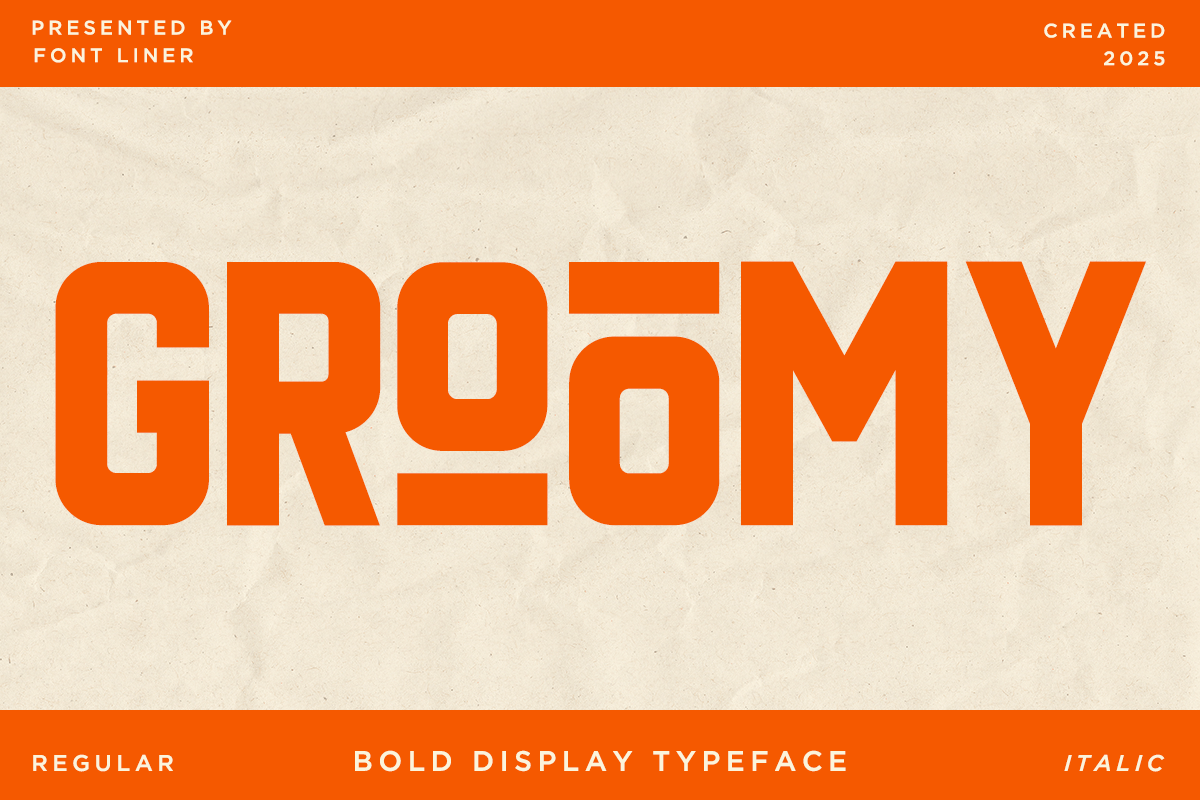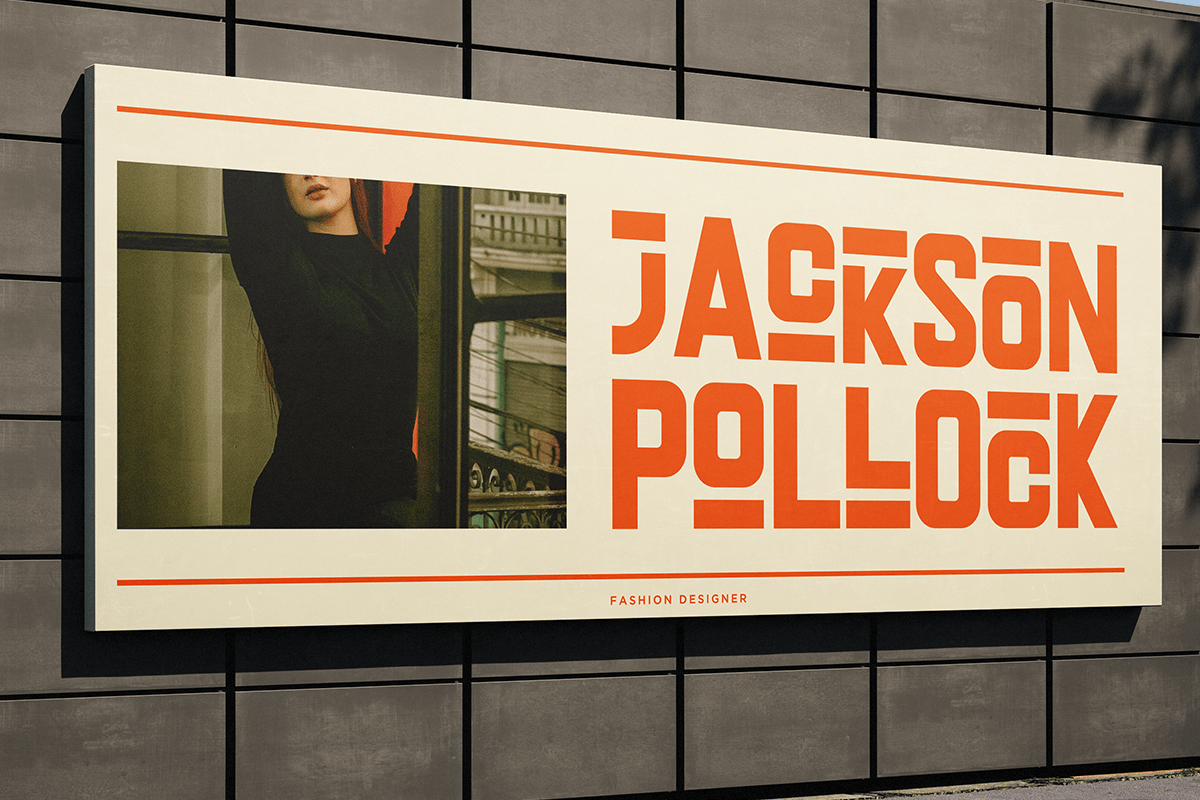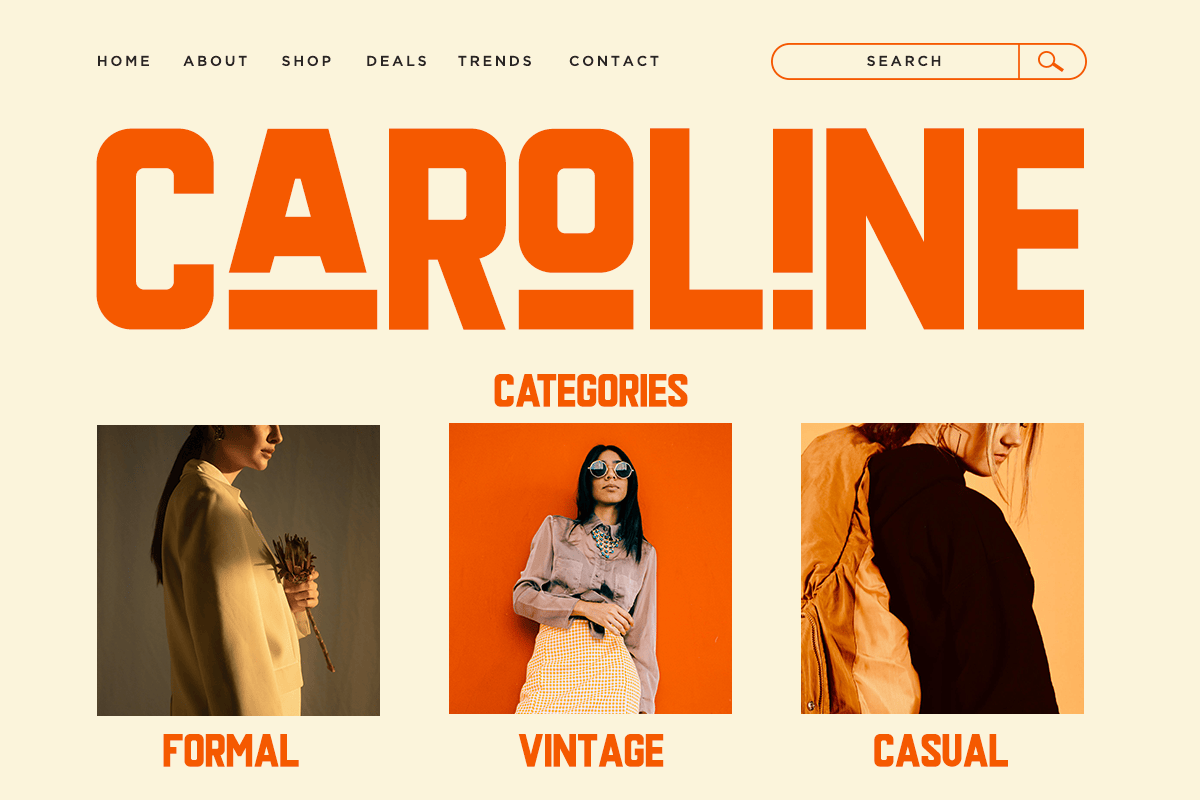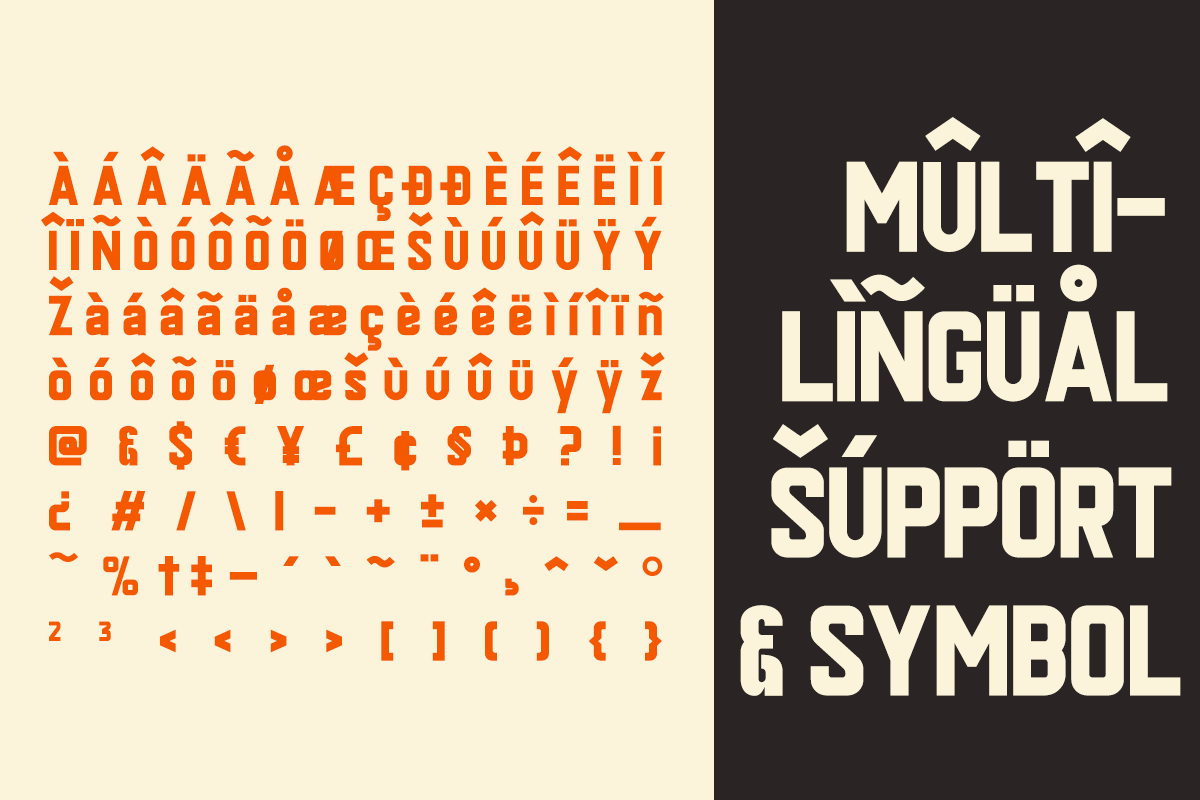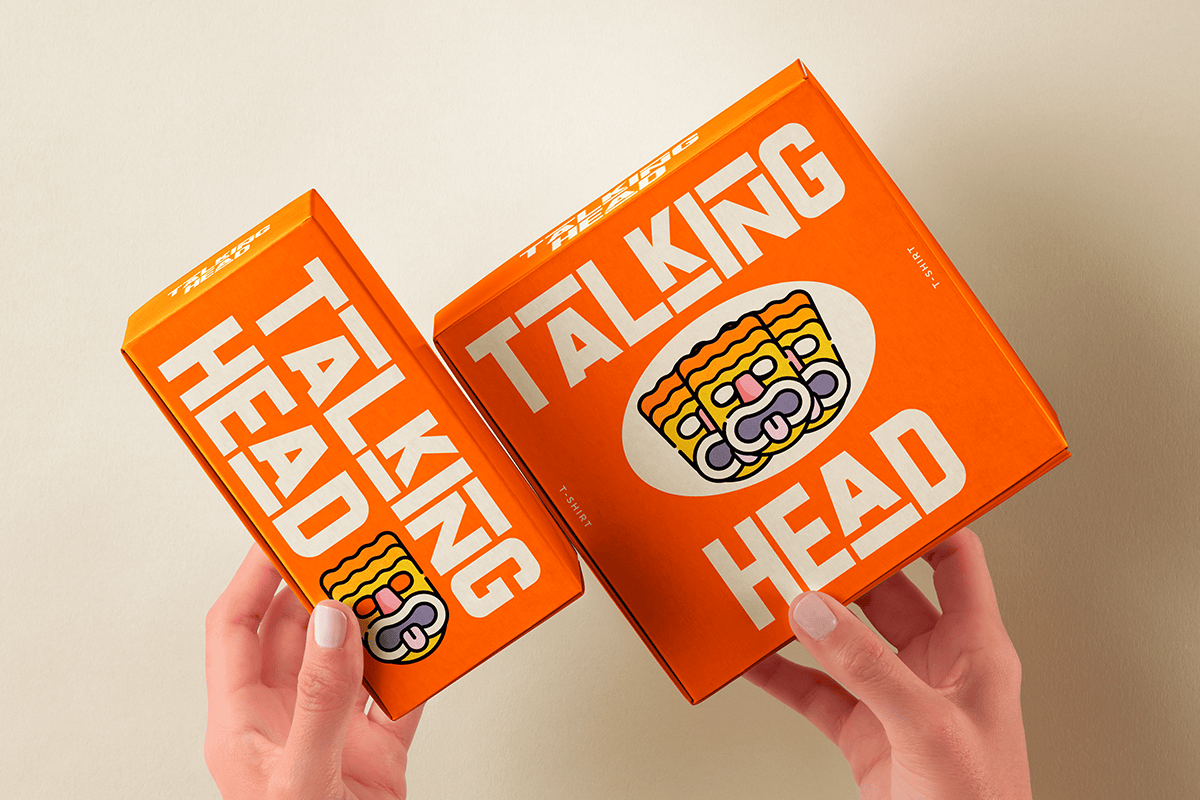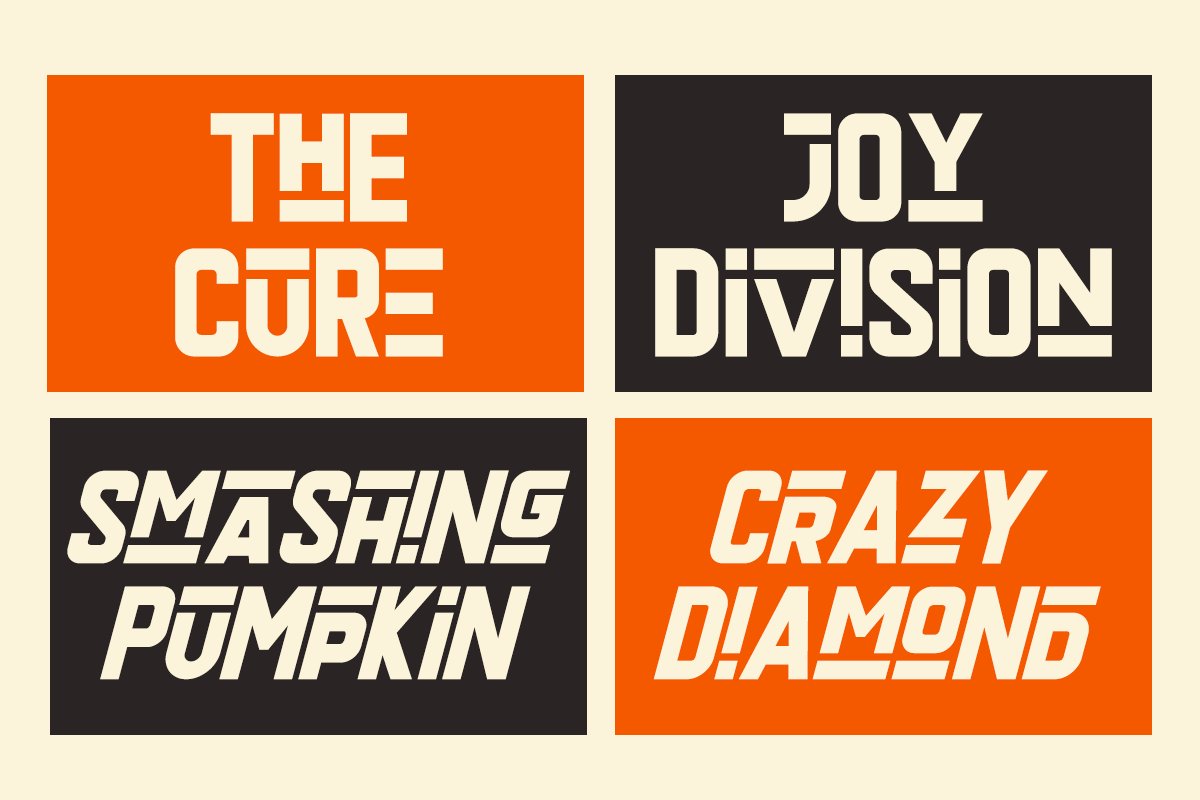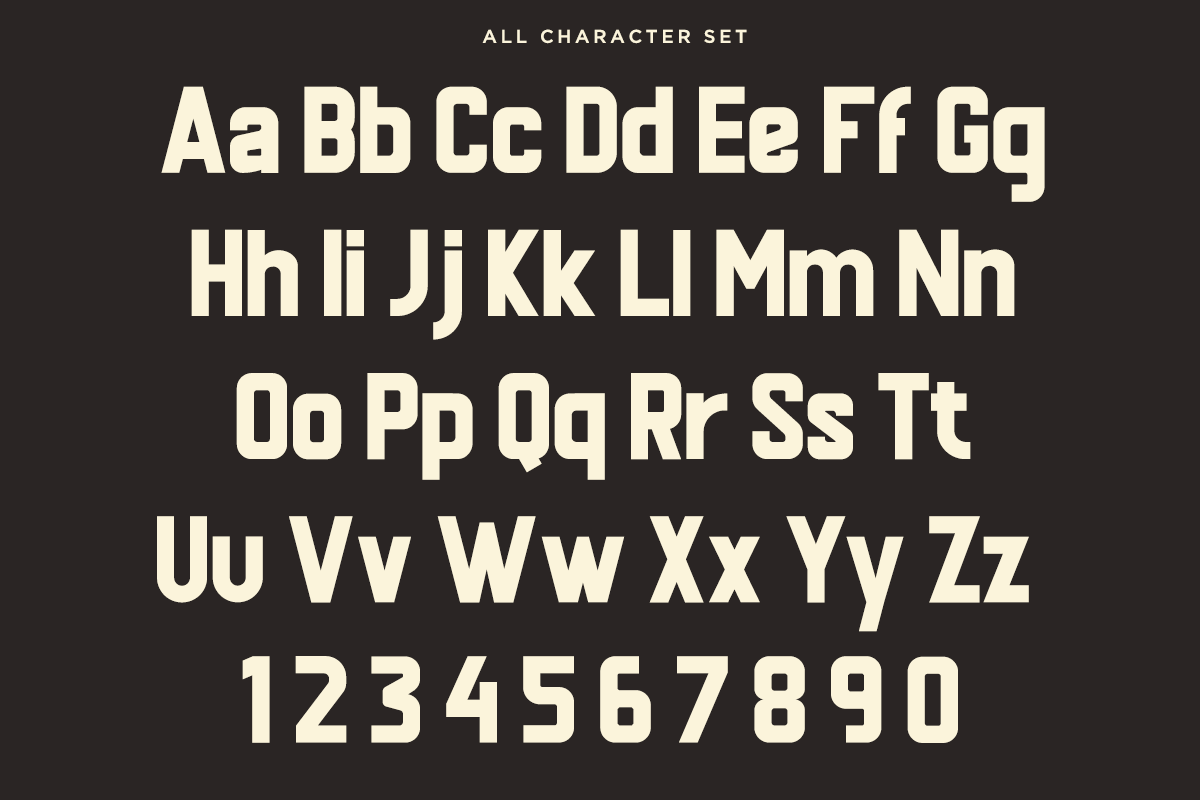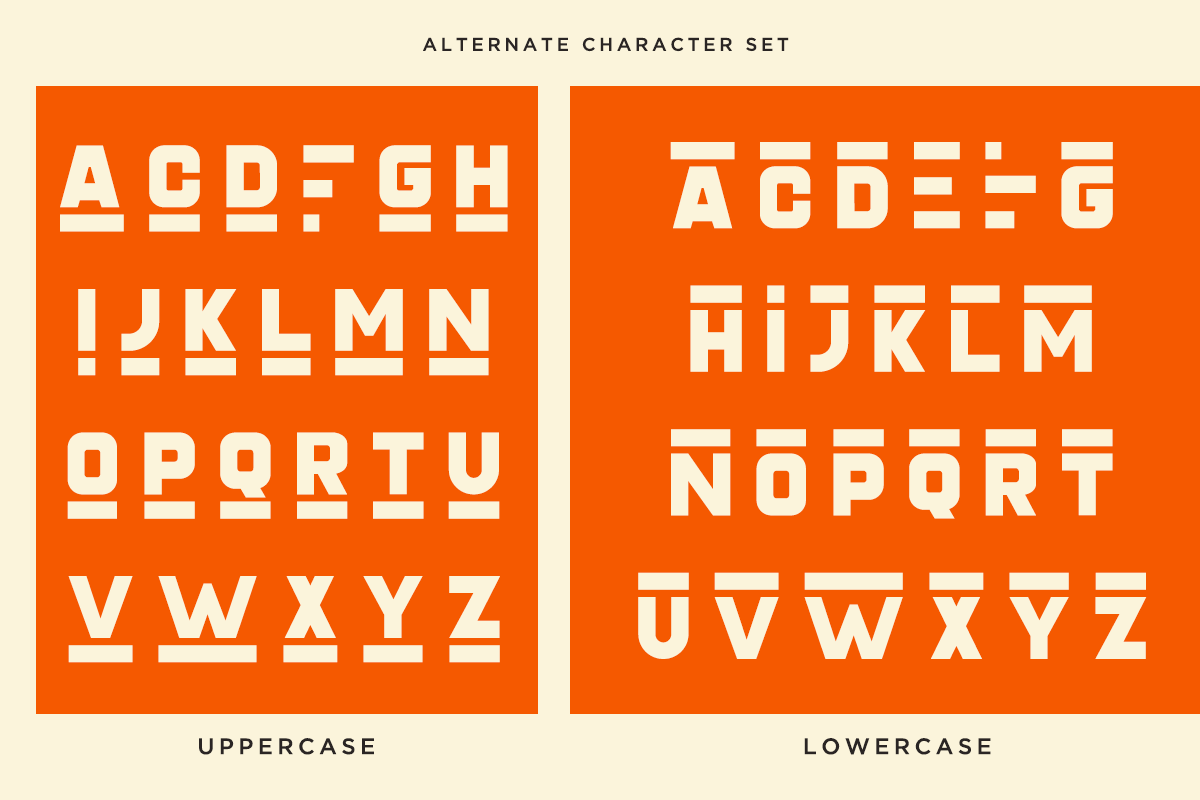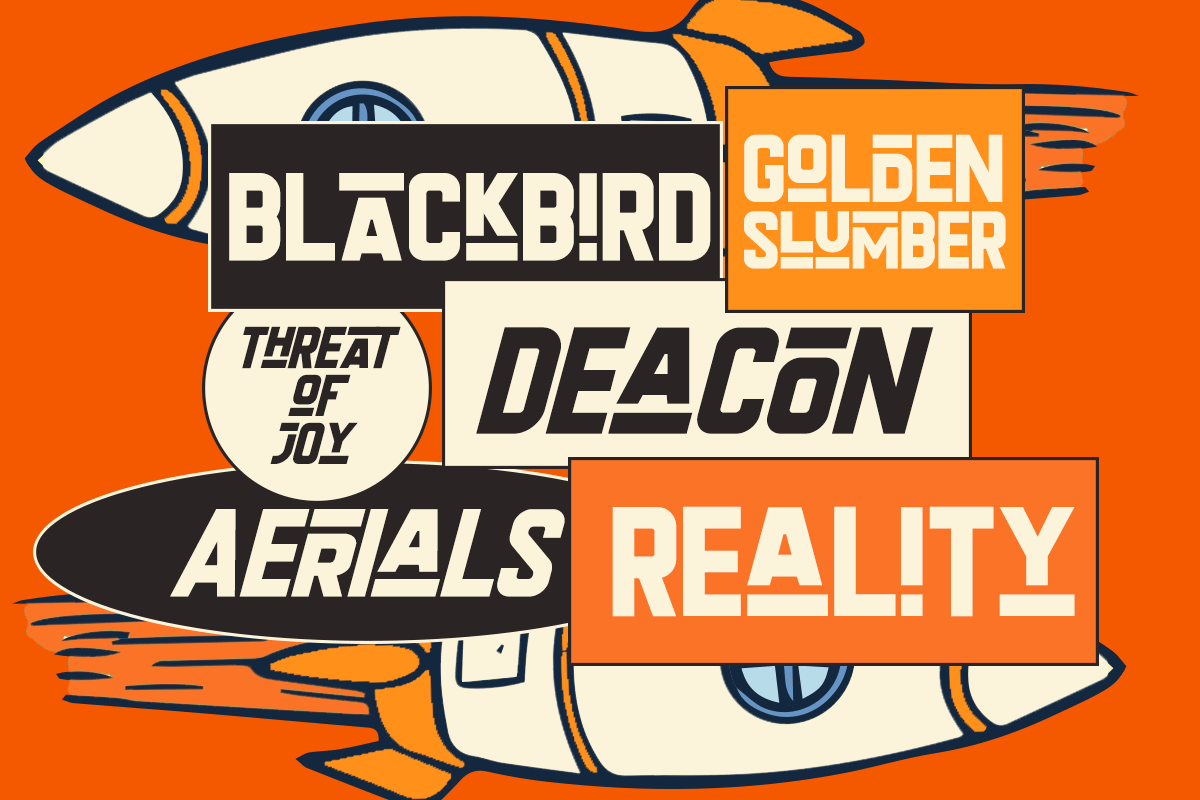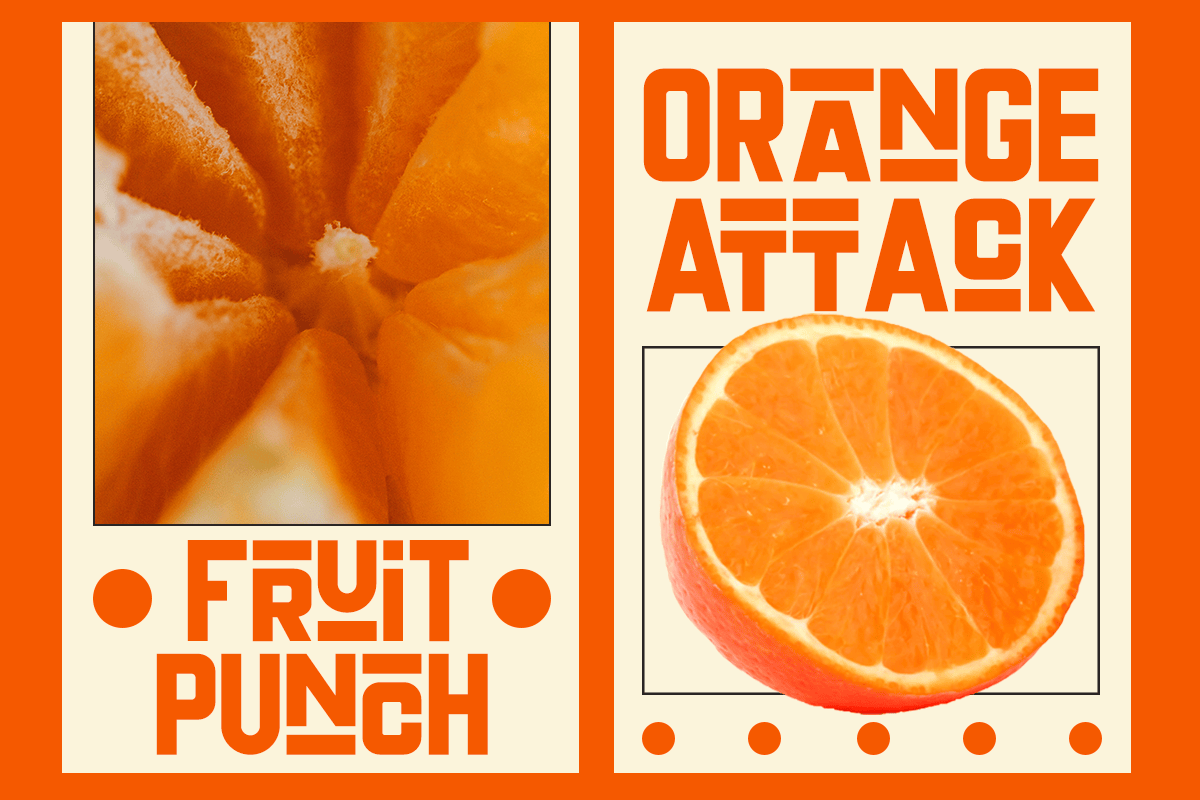
Groomy – Bold Condensed Display Font
Groomy is a bold condensed display font built for maximum visual impact. Featuring tall proportions, geometric construction, and strong industrial-inspired letterforms, this typeface delivers a modern and confident appearance that instantly captures attention. Its clean lines and compact structure make Groomy perfect for creating powerful headlines while maintaining excellent readability across both print and digital media.
Designed for branding, posters, sports graphics, editorial layouts, packaging, advertising, apparel, music covers, social media, technology brands, streetwear, websites, and product promotions, Groomy offers exceptional versatility for high-impact typography. Whether you’re designing logos, magazine titles, event posters, or bold marketing campaigns, Groomy creates a distinctive visual identity with a contemporary urban aesthetic.
Groomy includes regular and italic styles, uppercase and lowercase characters, stylistic alternates, multilingual support, numerals, punctuation, and symbols, giving designers everything needed for professional creative projects. From corporate branding and esports graphics to fashion campaigns and modern packaging, Groomy is the ideal condensed display font for designers seeking bold, dynamic, and memorable typography.
– Stylistic alternates
– Uppercase, Lowercase & Ligatures